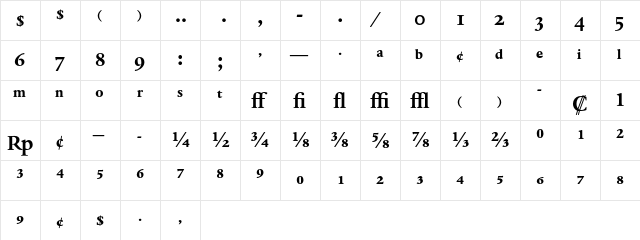
Dante MT Bold Expert Font Preview
Dante MT Bold Expert
Design Context for Dante MT Typeface
Dante MT offers clean, dependable letterforms without strong stylistic allegiance, making it a practical choice for designers who need flexibility. Its bold stroke weight gives it real presence on the page.
Pro Tip: Use Dante MT in both headline and body roles to test its range before committing to a single application.